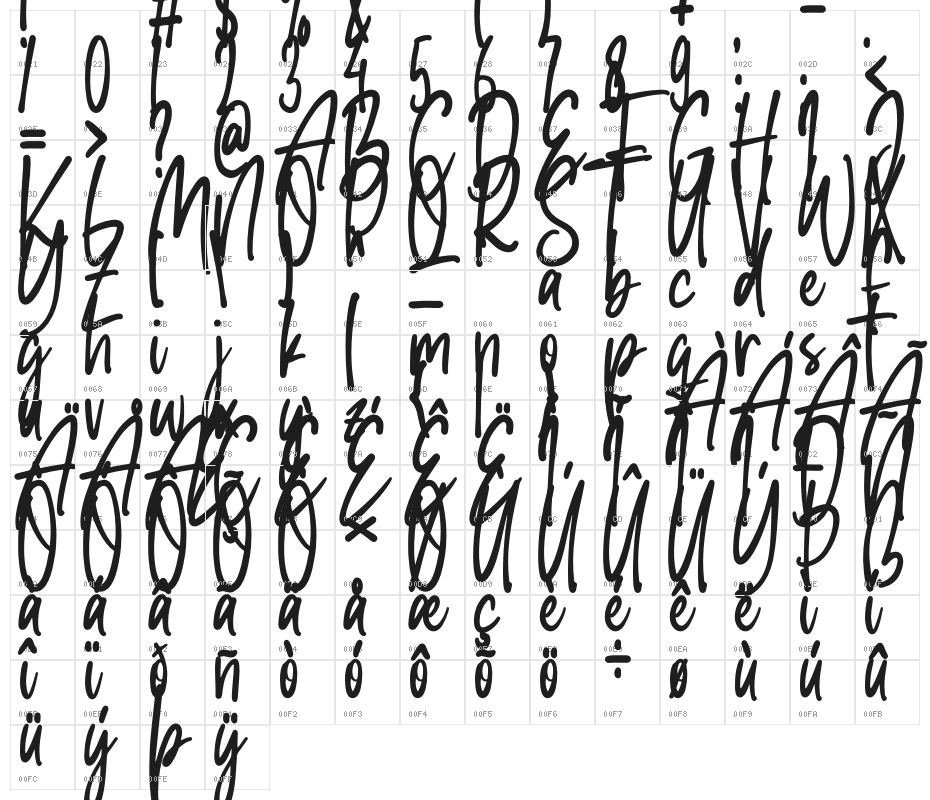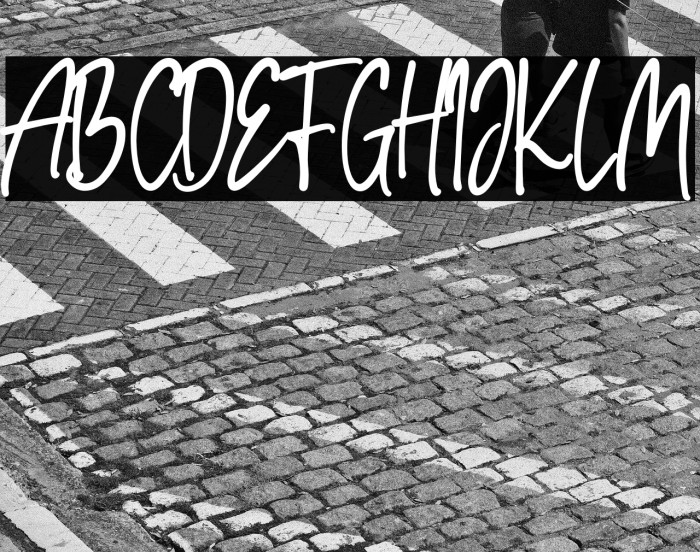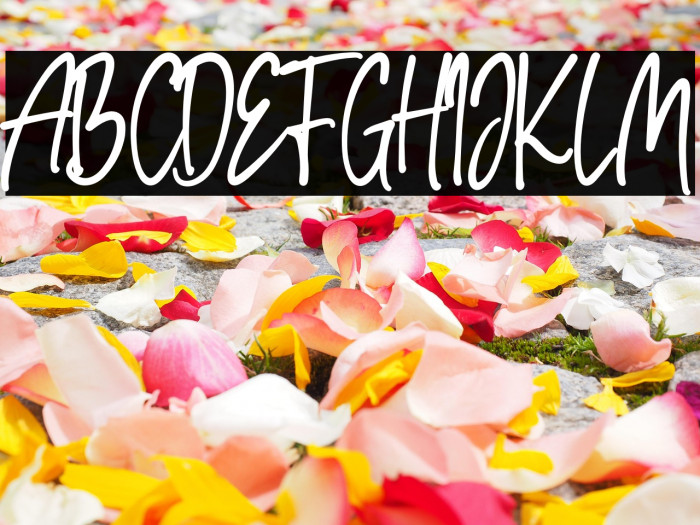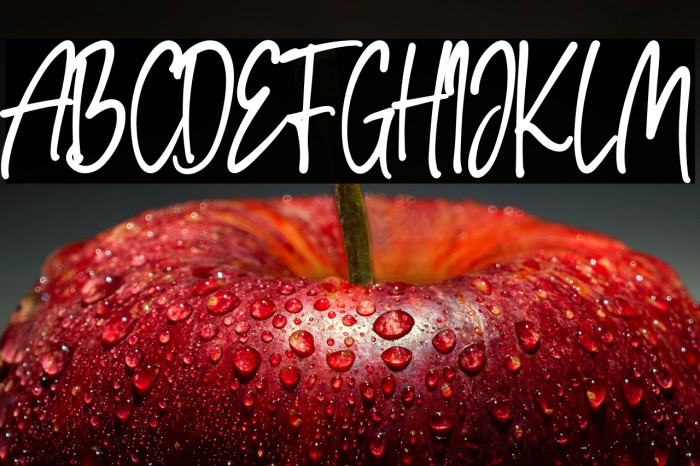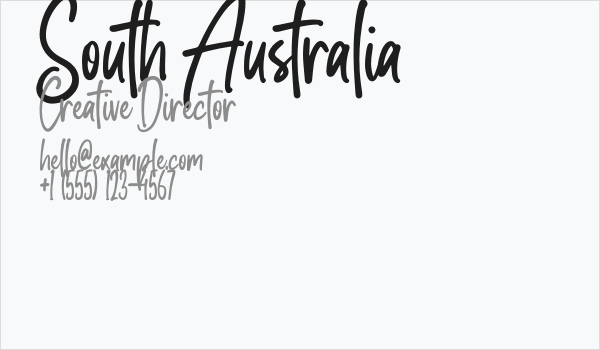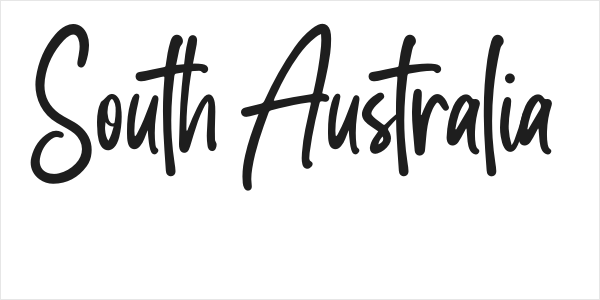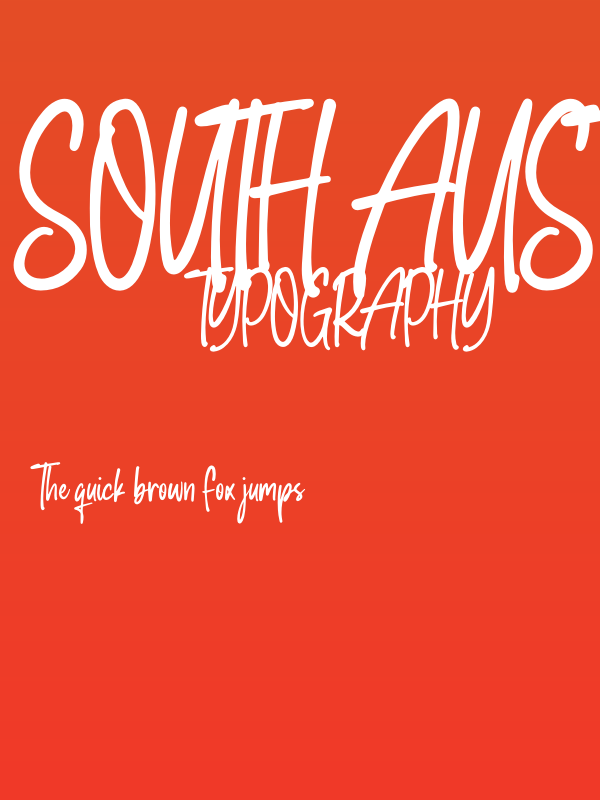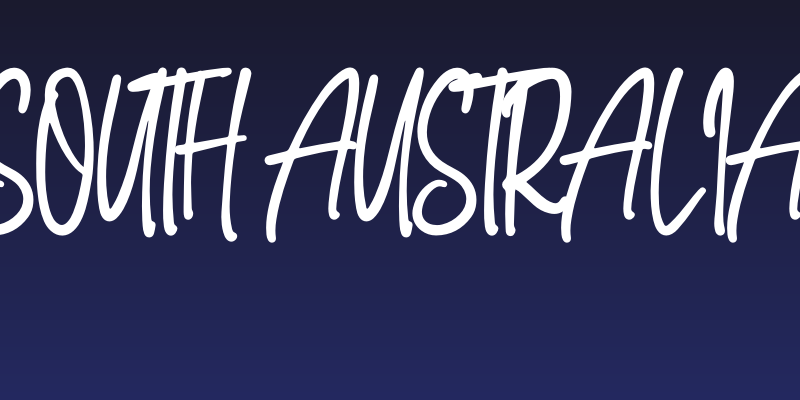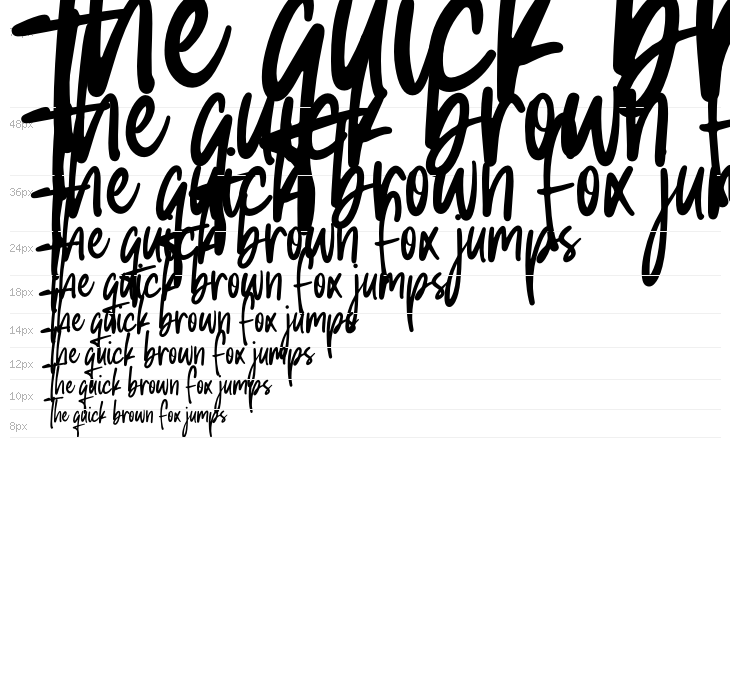
South Australia Font
South Australia Description
This font features a dynamic and energetic handwritten style, characterized by its fluid and cursive letterforms. The strokes are bold and expressive, with a noticeable slant that adds a sense of movement and personality. The uppercase letters are tall and narrow, while the lowercase letters maintain a consistent flow, enhancing readability despite the playful design. Numbers and special characters are crafted with the same lively flair, making them stand out. The overall appearance is informal and artistic, suitable for projects that require a personal touch.
Use CaseLogos, Headlines, Artistic projects
Proposed ProjectsIdeal for creative projects such as greeting cards, invitations, personal branding, and artistic posters.